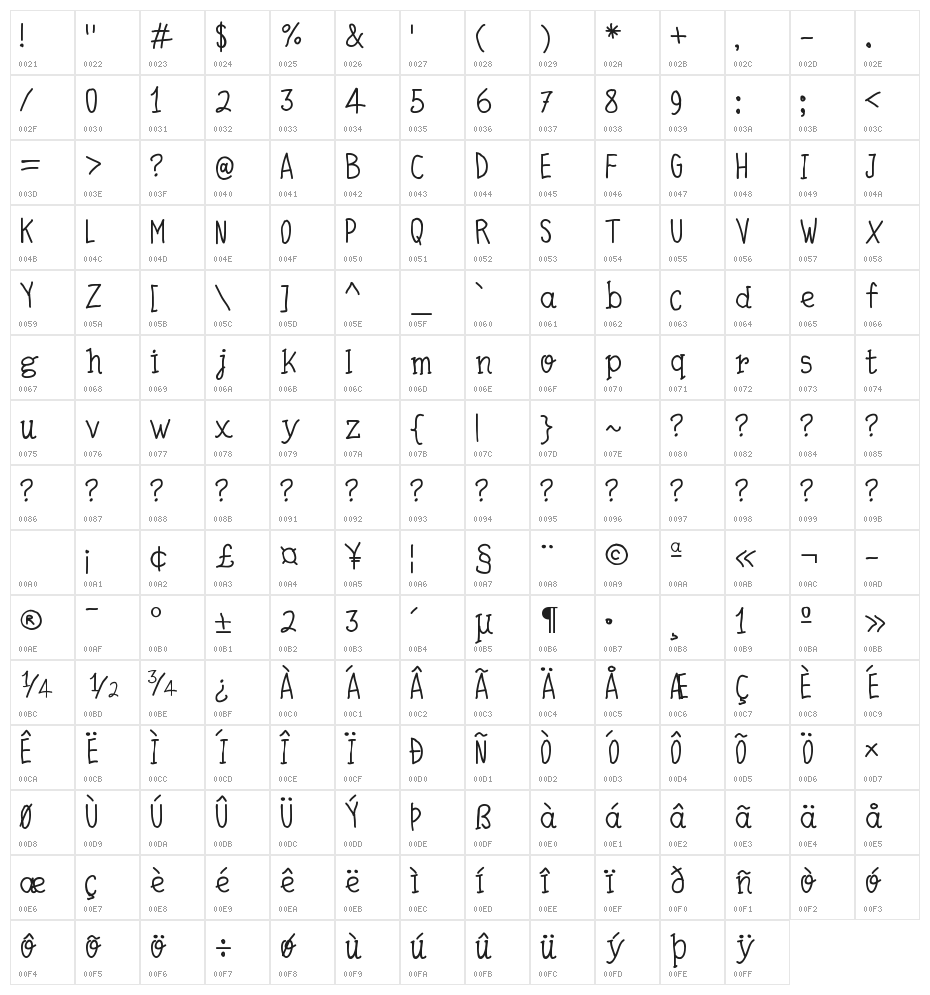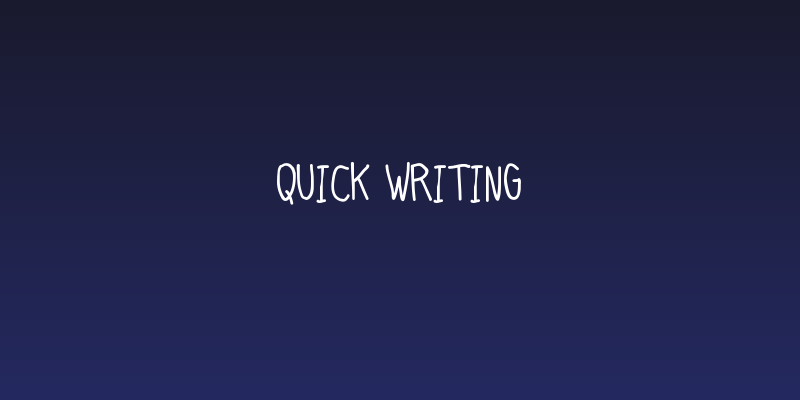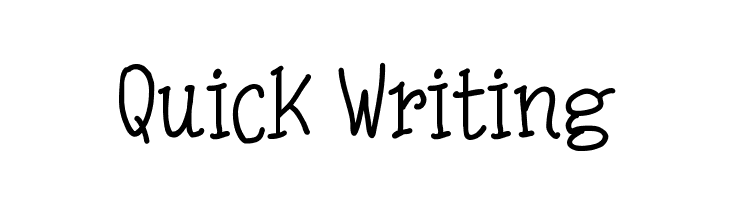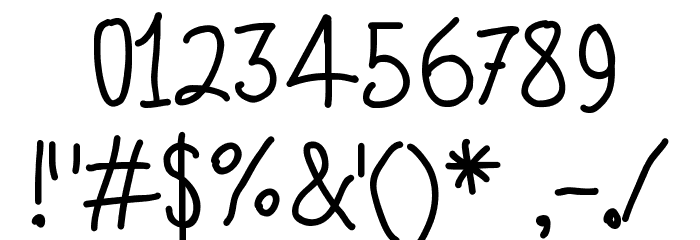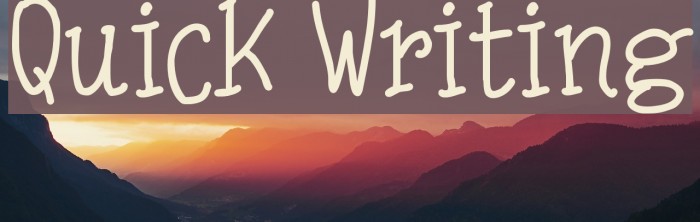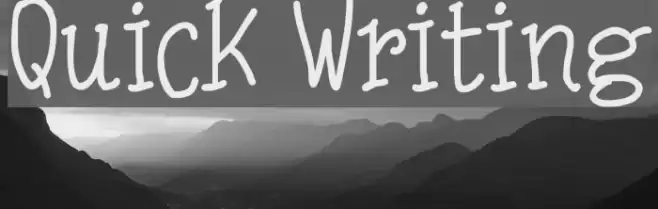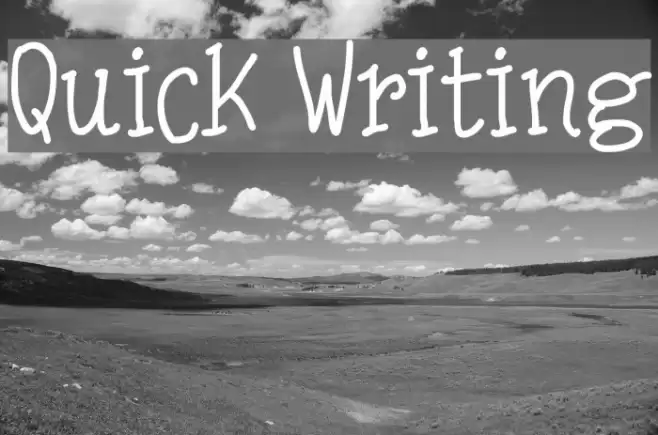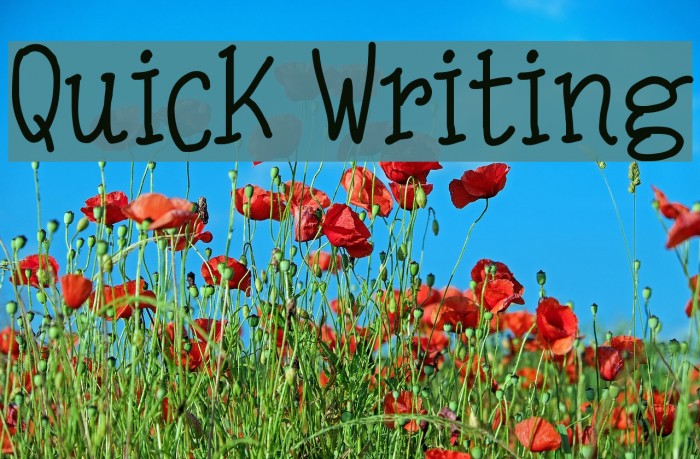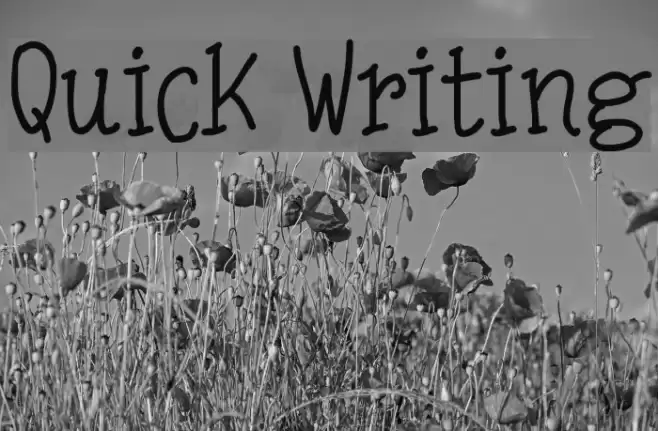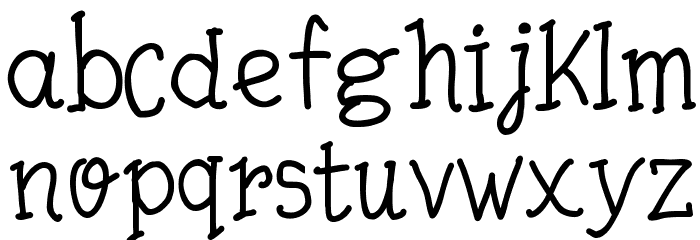
Quick Writing Font
Quick Writing Description
This font features a playful and informal handwritten style, characterized by its uneven strokes and slightly irregular letterforms. The uppercase letters are tall and narrow, while the lowercase letters maintain a consistent height, giving the font a cohesive appearance. The numbers and special characters follow the same whimsical style, making them blend seamlessly with the alphabet. The overall design is casual and friendly, suitable for projects that require a personal touch. The font's irregularities add charm and uniqueness, making it ideal for creative and artistic applications.
| Overall Style | Casual |
| Use Case | Headlines, Informal text, Creative projects |
| Proposed Projects | Ideal for greeting cards, children's books, personal blogs, and creative branding projects. |